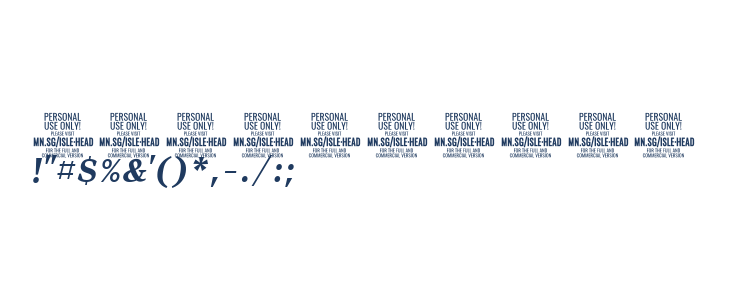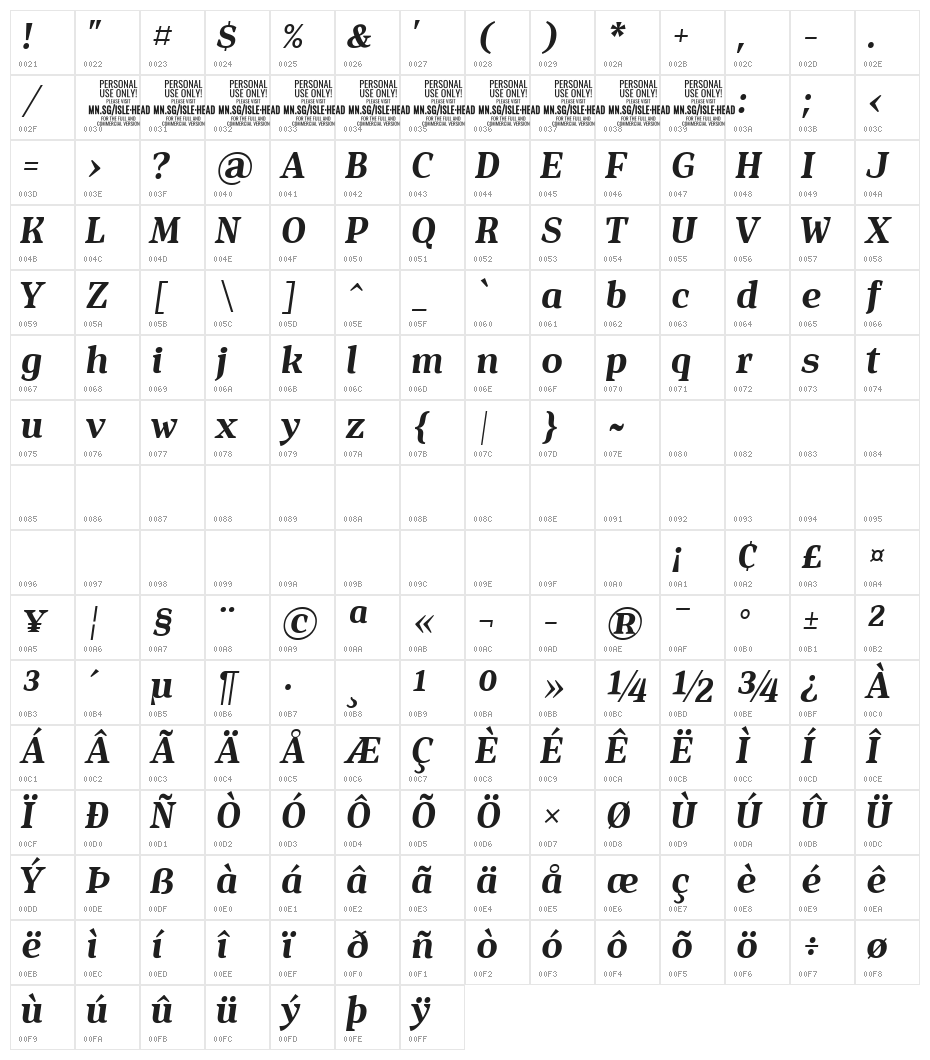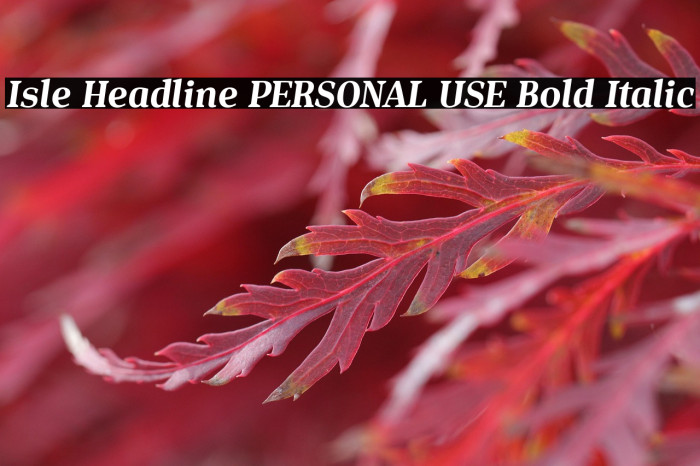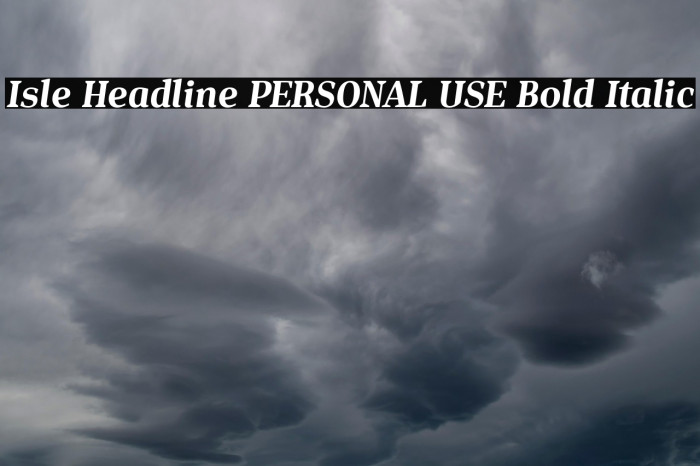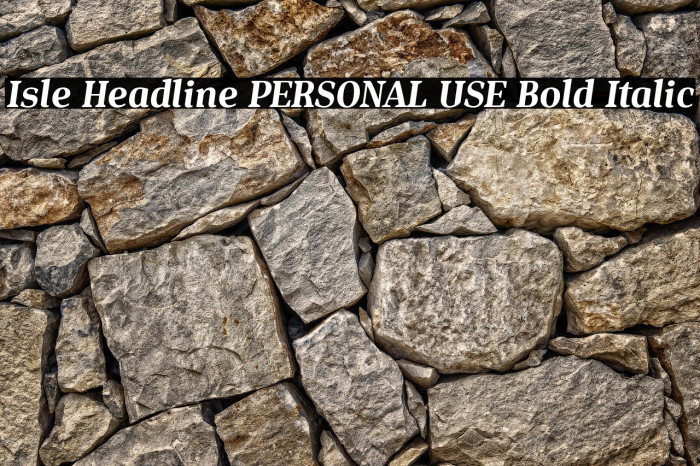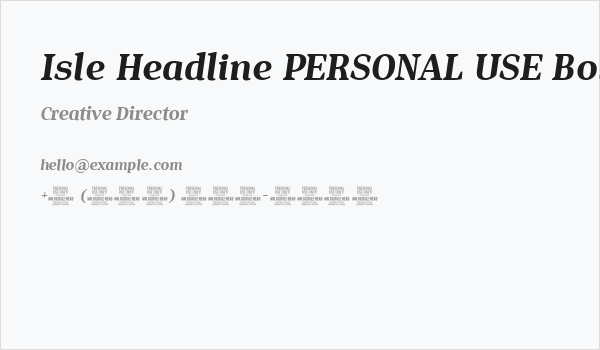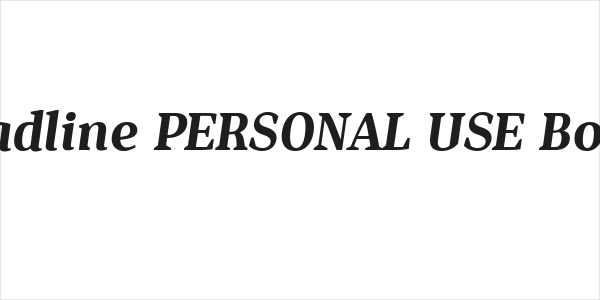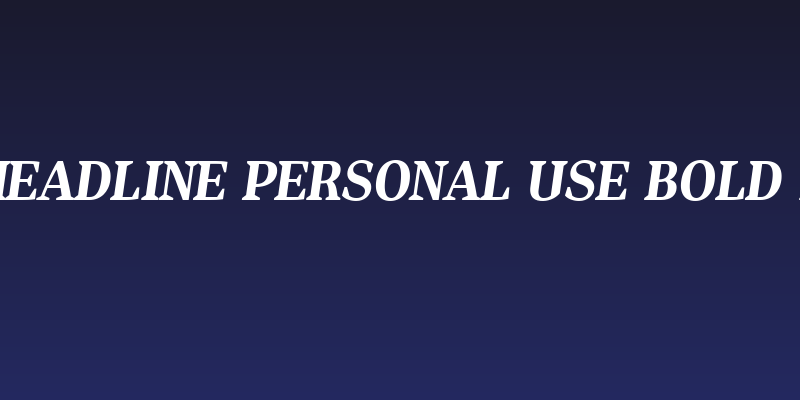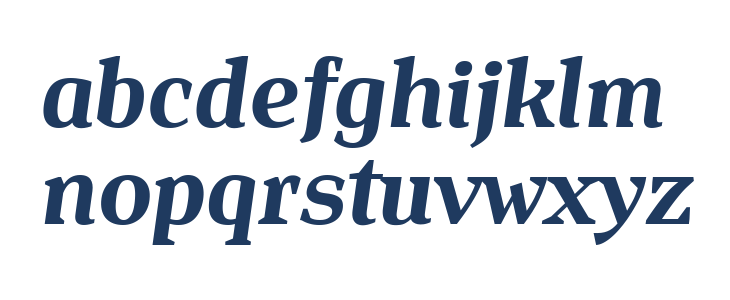
Isle Headline PERSONAL USE Bold Italic Font
Isle Headline PERSONAL USE Bold Italic Description
This font features a bold and italic style, combining strong, thick strokes with a slanted, dynamic appearance. The uppercase letters are prominent and commanding, while the lowercase letters maintain a consistent flow with a slight slant, enhancing readability. The numerals and special characters are designed to match the boldness and style of the alphabet, ensuring a cohesive look across all text. The font's overall design is modern yet classic, making it versatile for various applications.
| Overall Style | Modern Classic |
| Proposed Projects | Ideal for headlines, advertising, branding, and editorial design where a bold statement is needed. |